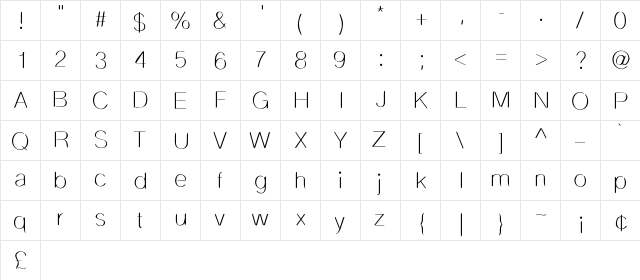
DelicateSans Medium
Design Context for DelicateSans Typeface
DelicateSans offers clean, dependable letterforms without strong stylistic allegiance, making it a practical choice for designers who need flexibility.
Pro Tip: Use DelicateSans in both headline and body roles to test its range before committing to a single application.